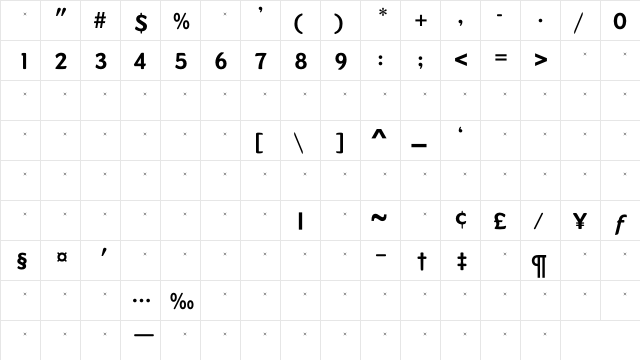
DundeeBoldTab Regular Font Preview
DundeeBoldTab Regular
DundeeBoldTab Regular Font Details
Design Context for DundeeBoldTab Typeface
DundeeBoldTab is a composed and adaptable typeface that performs quietly and consistently across a wide range of design contexts. Its bold stroke weight gives it real presence on the page.